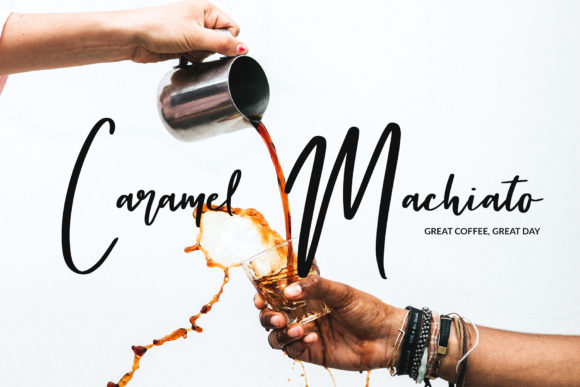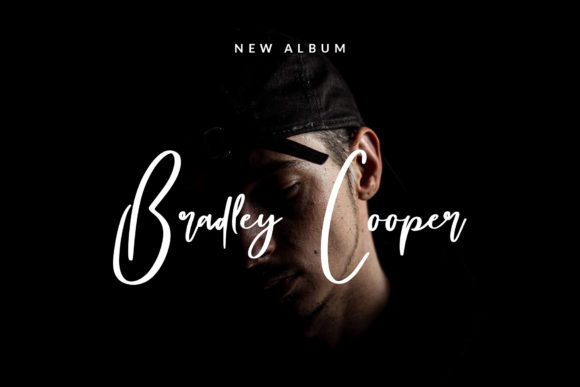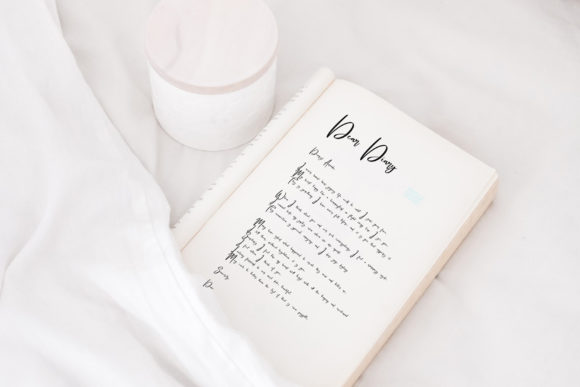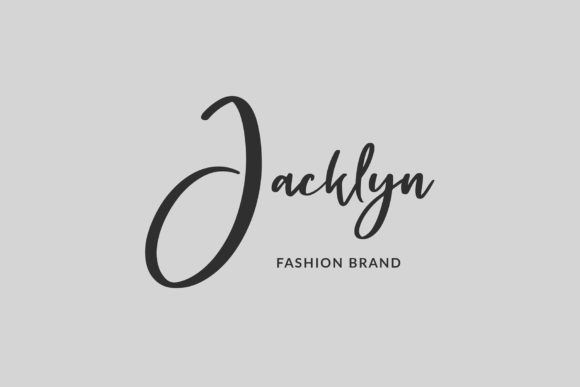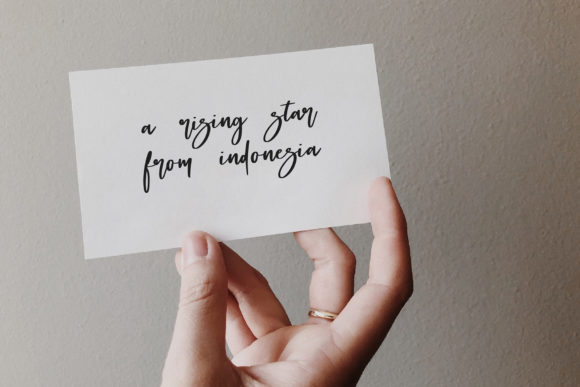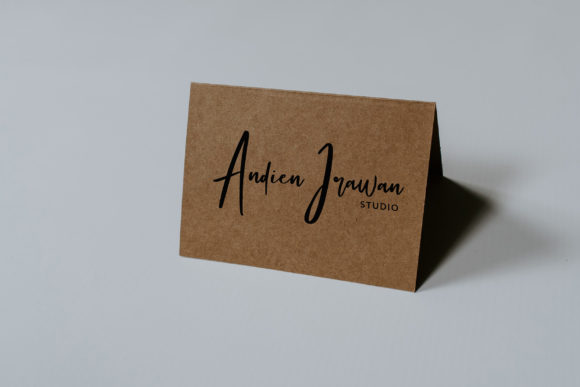
Introduction to Serihilde Font
Have you ever found yourself struggling to express the perfect tone in a design project, only to have it fall flat because the font just didn’t quite fit? We’ve all been there – searching for that elusive combination of style and substance that elevates our creative project from good to great. For designers, the right font can be the difference between a design that’s merely nice and one that’s truly exceptional.
Enter the Serihilde Font, a high-quality, handcrafted font that’s sure to become a go-to design resource for anyone looking to add a touch of personality to their work. With its casual charm and versatility, this font is perfect for a wide range of applications – from standalone headlines to busy backgrounds with a transparent background.
Key Features of Serihilde Font
- High-quality, professional design suitable for various creative projects.
- Features a unique, modern design aesthetic that sets it apart from other fonts.
Honest Review: Serihilde Font
As a designer, I’m always on the lookout for high-quality design resources to elevate my creative projects. Recently, I stumbled upon the Serihilde Font, and I must say, it’s been a great addition to my toolkit. The font is free to download, which is always a bonus, and it comes with a transparent background, making it easy to use in various design scenarios.
- ✨ High-quality typography: The Serihilde Font has a unique and elegant design that makes it perfect for creative projects.
- ✨ Versatile: The font is suitable for a wide range of applications, from digital to print media.
- ✨ Easy to use: The font is well-organized, and the transparent background makes it a breeze to use in design software.
While the Serihilde Font is an excellent design resource, I do have a few minor complaints. ⚠️ The font family is a bit limited, with only a few styles available. Additionally, the font may not be suitable for very small text sizes, as the letters can become a bit fuzzy.
Overall, I’m impressed with the Serihilde Font, and I would definitely recommend it to fellow designers. It’s a great addition to any design library, and its high-quality typography and versatility make it a valuable resource for creative projects.
Introduction to Serihilde Font
The Serihilde Font is a high-quality, elegant design resource perfect for creative projects. With its sleek and modern design, it’s ideal for a wide range of applications.
Getting the Most Out of Serihilde Font
To get the most out of the Serihilde Font, experiment with different font sizes, colors, and combinations. Use it to create eye-catching headlines, titles, and body text.
Common Use Cases for Serihilde Font
The Serihilde Font is perfect for:
- Website headers and footers
When compared to Serihilde Font, Great Vibes Font has a more classic and sophisticated feel. While Serihilde Font is more playful and whimsical, Great Vibes Font is better suited for formal events or projects that require a more refined look.
When compared to Serihilde Font, Carolyna Pro Font has a more contemporary and sleek feel. While Serihilde Font is more rustic and vintage-inspired, Carolyna Pro Font is better suited for modern and innovative projects.